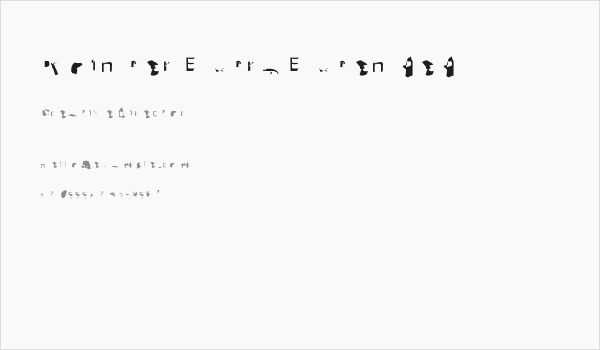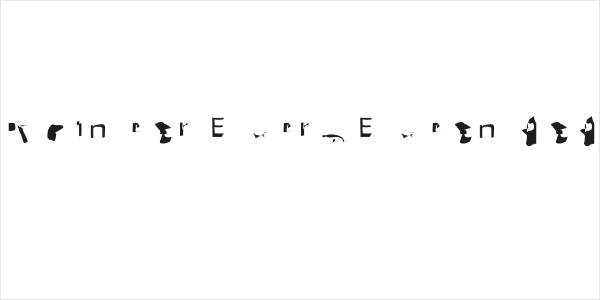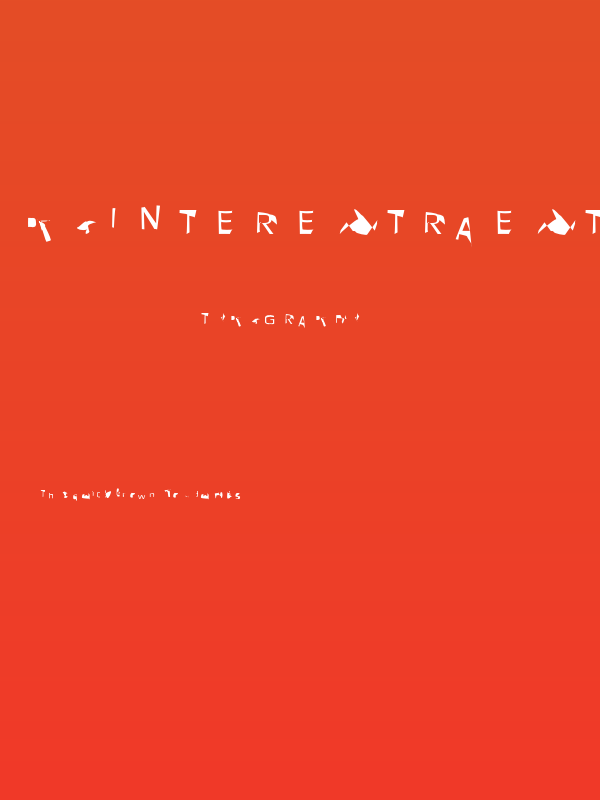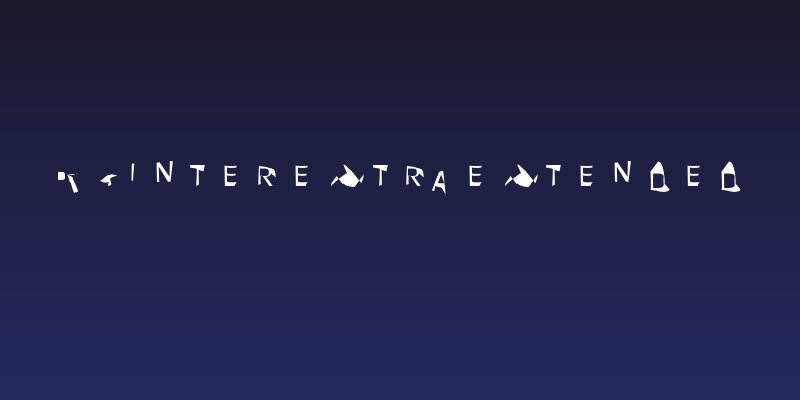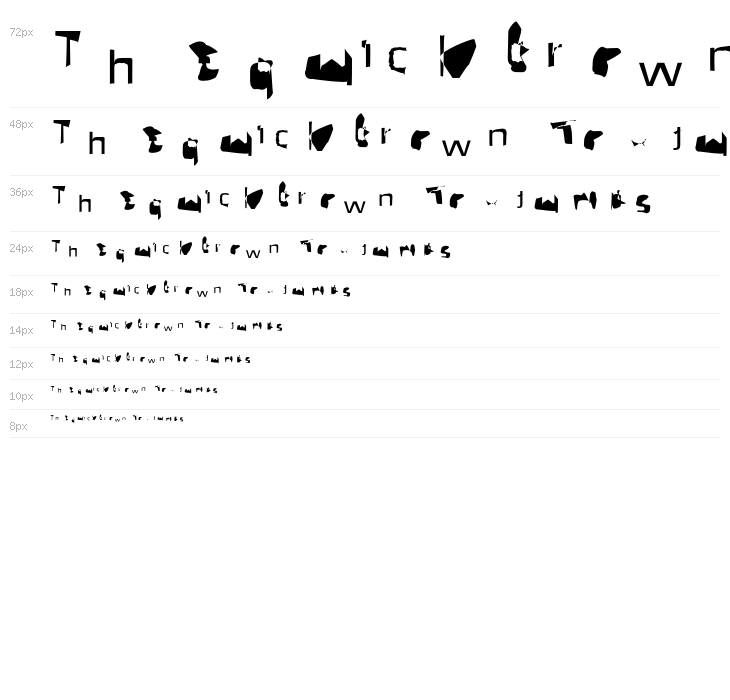
Pointer ExtraExtended Font
✎ Distorted Eroded
| Vorgeschlagene Projekte | Ideal for avant-garde posters, album covers, or any project seeking a disruptive and innovative visual impact. |